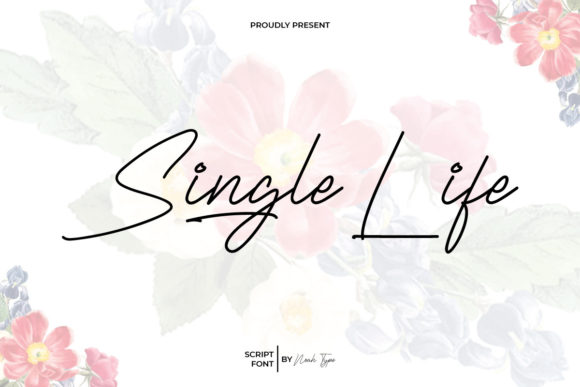
Dive into the world of Single Life Font, a captivating script font family that will transform your creative projects into masterpieces. Crafted with meticulous care and attention to detail, Single Life Font embodies the essence of flawless hand-lettering, capturing the organic beauty of handwritten strokes.
Immerse yourself in a world of infinite possibilities with Single Life Font. Its elegant monoline design exudes sophistication and charm, adding a touch of personality to every letterform. Whether you're a graphic designer, crafter, or passionate typographer, Single Life Font will become your trusted companion in creating visually stunning designs.
Unleash your creativity with Single Life Font, the perfect choice for weddings, engagements, branding, invitations, and a multitude of other projects. Its versatility knows no bounds, allowing you to effortlessly elevate your designs and make a lasting impression.
Indulge in the beauty of Single Life Font, a font family that speaks to the heart. Its enchanting script style evokes emotions and creates a captivating narrative in every word you write. Let Single Life Font be your muse as you design logos, posters, social media graphics, and more, leaving your audience spellbound.